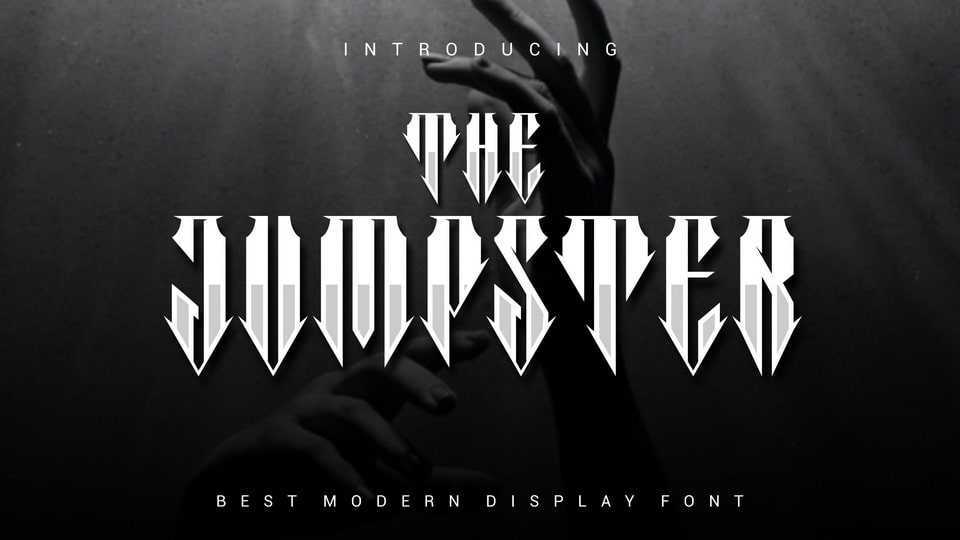
Download The Jumpster font, a bold and authentic display typeface. The Jumpster font is perfect for any branding project such as logos, t-shirt printing, creative products, and more. extraordinary in a variety of contexts.
Designer: Onotype